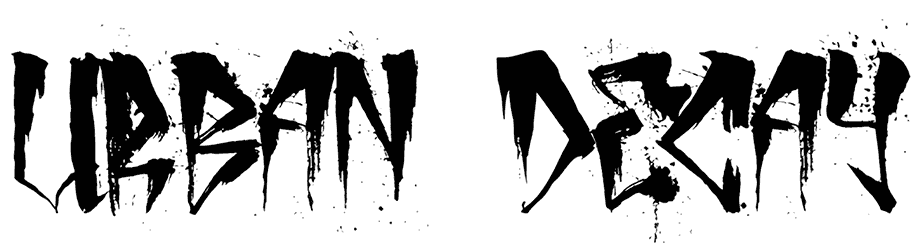
Urban Decay Font
Looking originates from a crazy spray painting to bring dirty, grunge, and also urban vibes in your typography, nothing more convincing than this graffiti font, although it stands challenging to read. Urban Decay which i…
Looking originates from a crazy spray painting to bring dirty, grunge, and also urban vibes in your typography, nothing more convincing than this graffiti font, although it stands challenging to read. Urban Decay which is not irrelevant to the horror font, just supports uppercase letters to point out many creative header displays in street art posters, Halloween flyers, movie titles, covers, and any others.
About the font:
Urban Decay is a hand-made brush stroke
font made to celebrate my love for graffiti,
urban exploration, street calligraphy
and inner city living!
Give it a try and “vandalise” your graphics